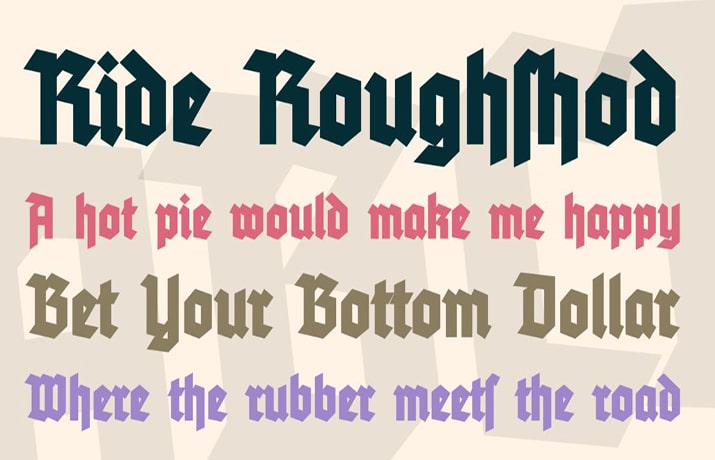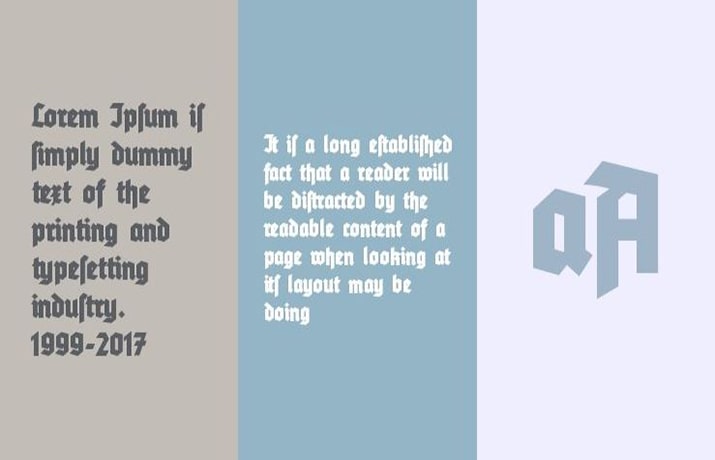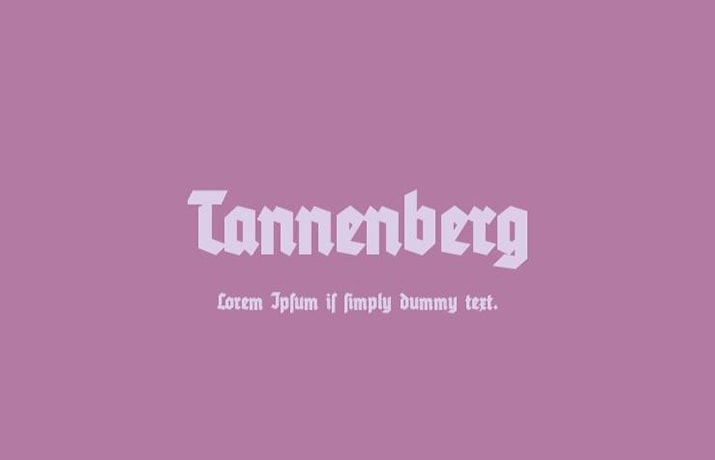
Tannenberg Font is an elegant gothic typeface that comes in a very unique old-style textual arrangement. Ideal for posters, flyers, headers, titles, and more.
German-based font foundry D. Stempel AG took over the responsibility of issuing it for the first time since 1935. The designer has taken inspiration from the Textura font.
Because Textura features a grid pattern and a non-cursive layout. Therefore, Tannenberg will prove itself as an ideal font for you.
Because it has a unique pattern than any other font and is perfect for classic designs. And all letters follow a uniform baseline and fairly bold structure.
You can use this trendy font almost everywhere like making some video titles, logo design, poster making, banner ads, banners advertisements, flyers, titles, brochures, headlines, book covers, stocking printing, and many other similar things.
Another great aspect of these free fonts is that it offers great visibility even in wide displays without losing the finish of the letters.